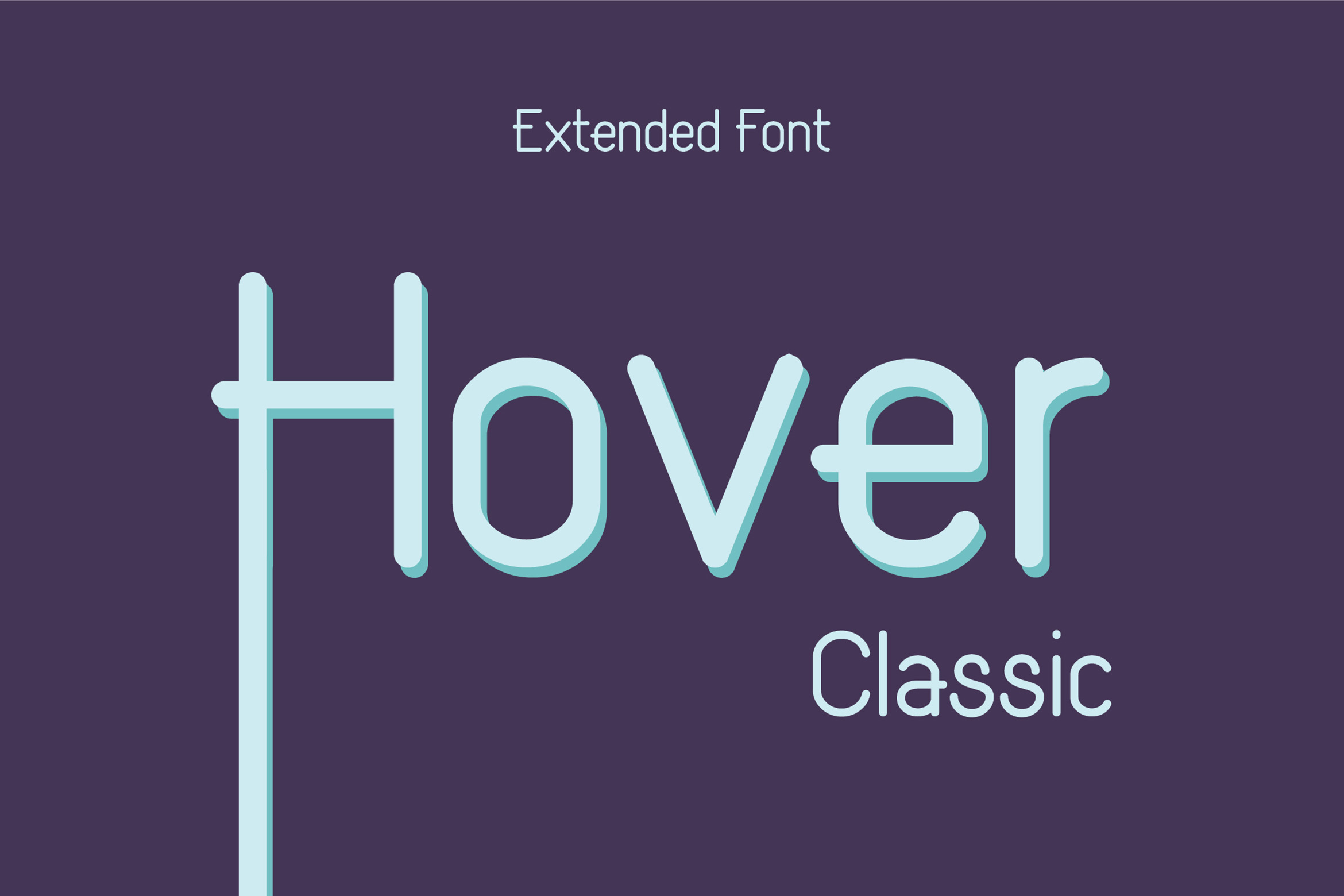
Hover Classic Extended Font
Hover Classic Extended Font is unique and decorative display font. It will create playful mood and give it’s own unique character to your new project. Hover is great for creating logos, identities and packaging design.
Uppercase, lowercase and Latin extended letters, numbers, symbols included.